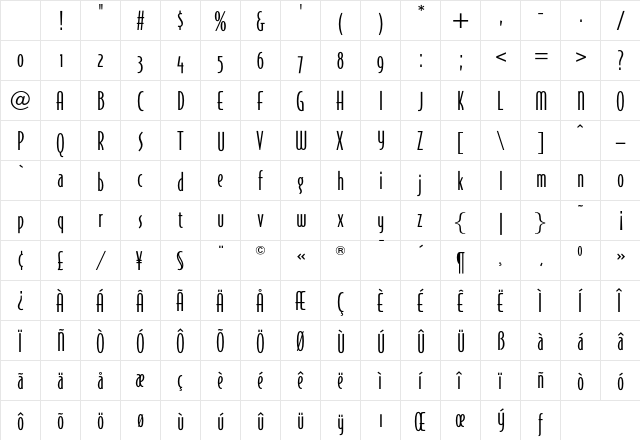
Complete OPTIJake Antique glyph index. Displaying only characters natively supported by OPTIJake Antique font.
OPTIJake wears its vintage influences proudly, with letterforms that recall mid-century signage, classic packaging, and nostalgia-driven design.